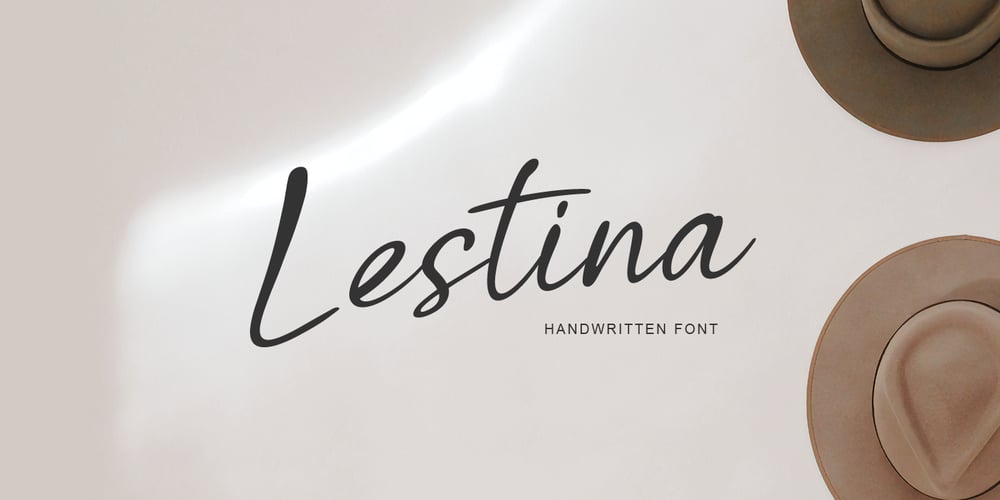
Lestina
Lestina font
Lestina Font Family was designed by Pavel Larin and published by Larin Type Co. Lestina contains 1 styles and family package options. Lestina This is a beautiful and elegant hand drawn font, will emphasize your individuality in any project. You can also use them to create a logo or templates, invitations, blog, branding, marketing, book covers, magazines, advertising, stationery, logo design and much more. This font is easy to use has OpenType features.